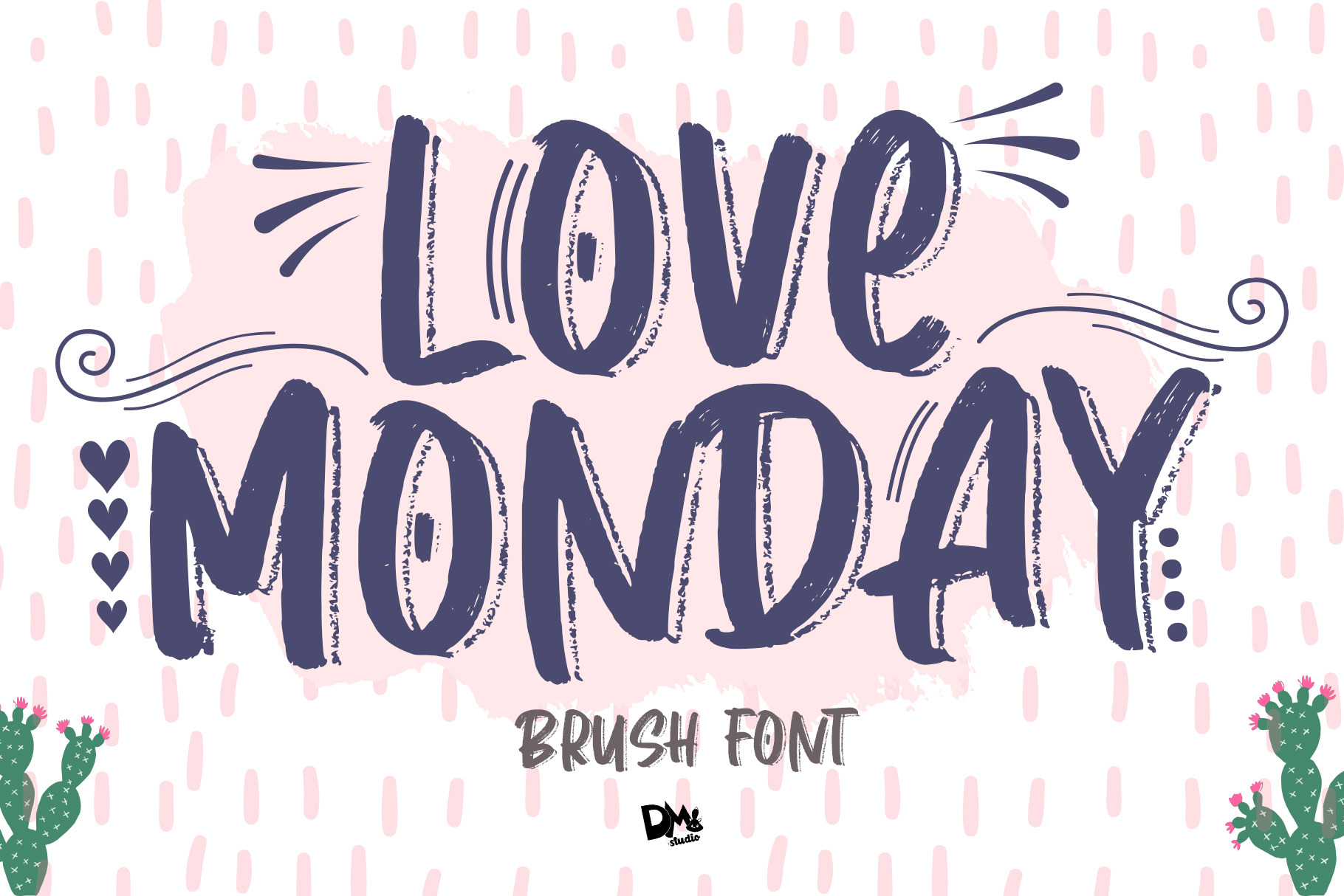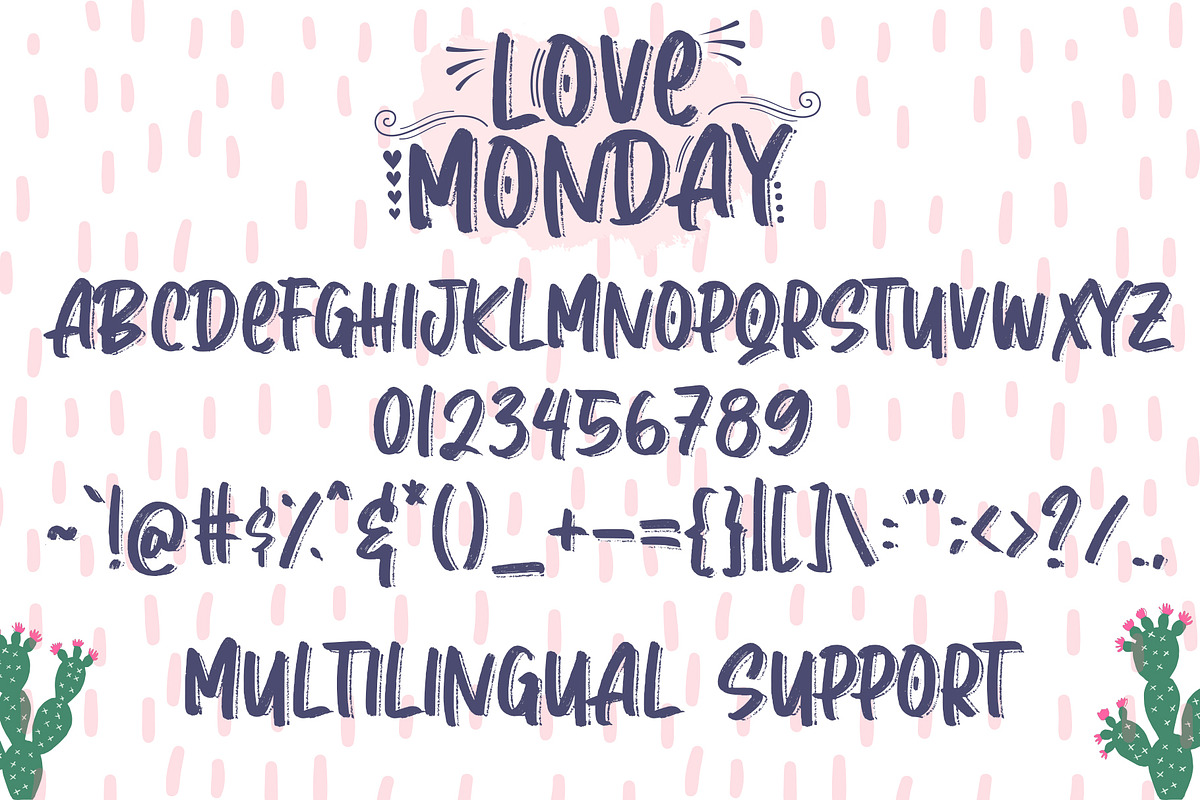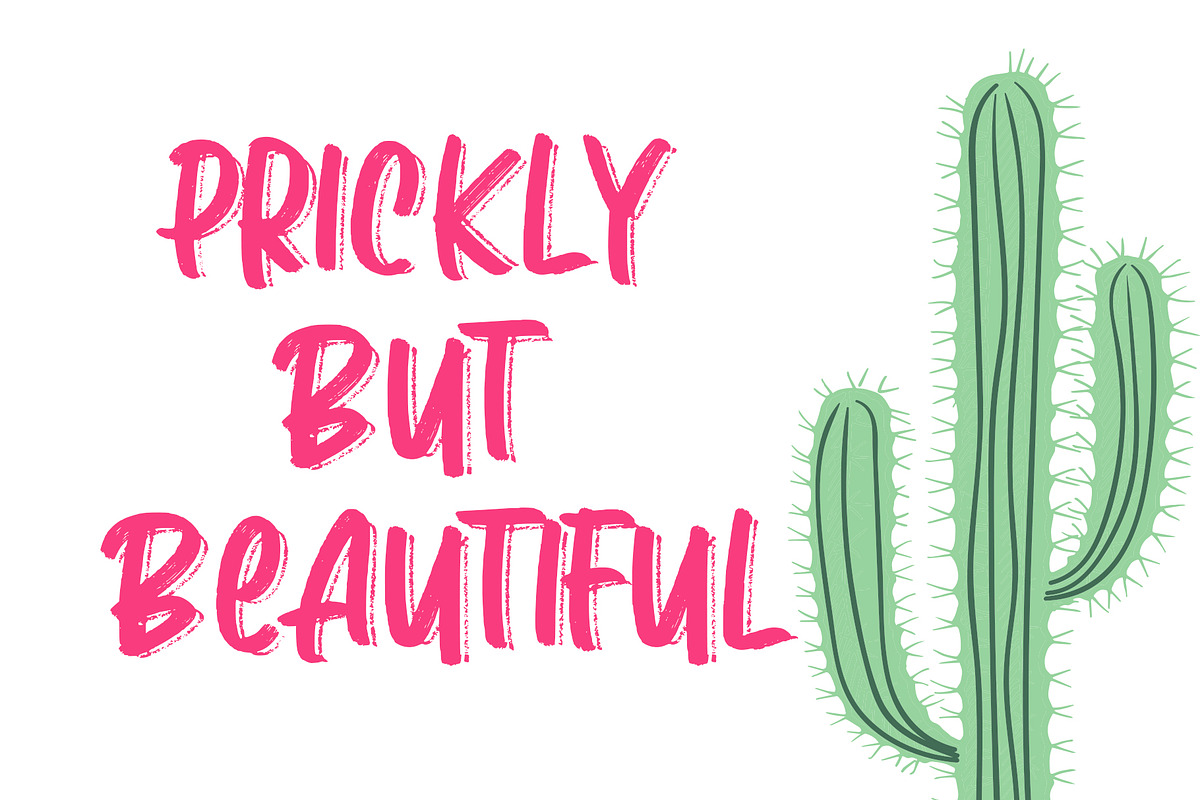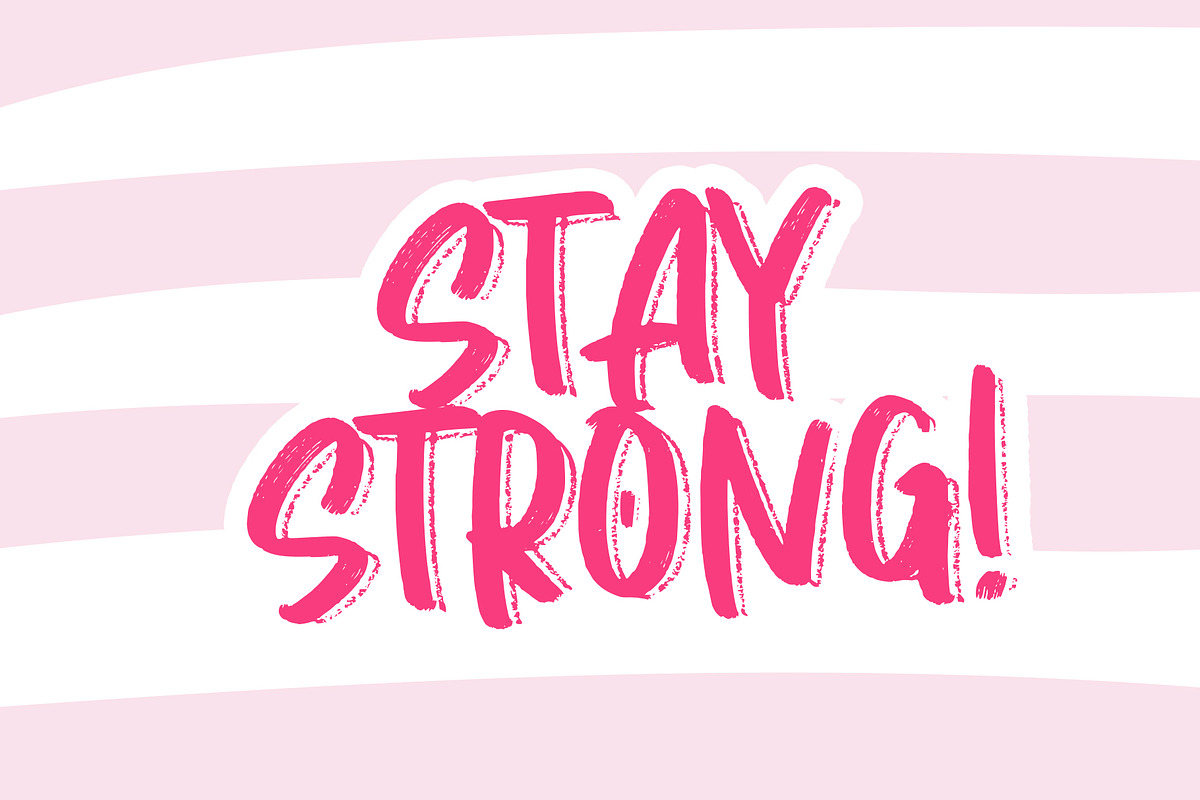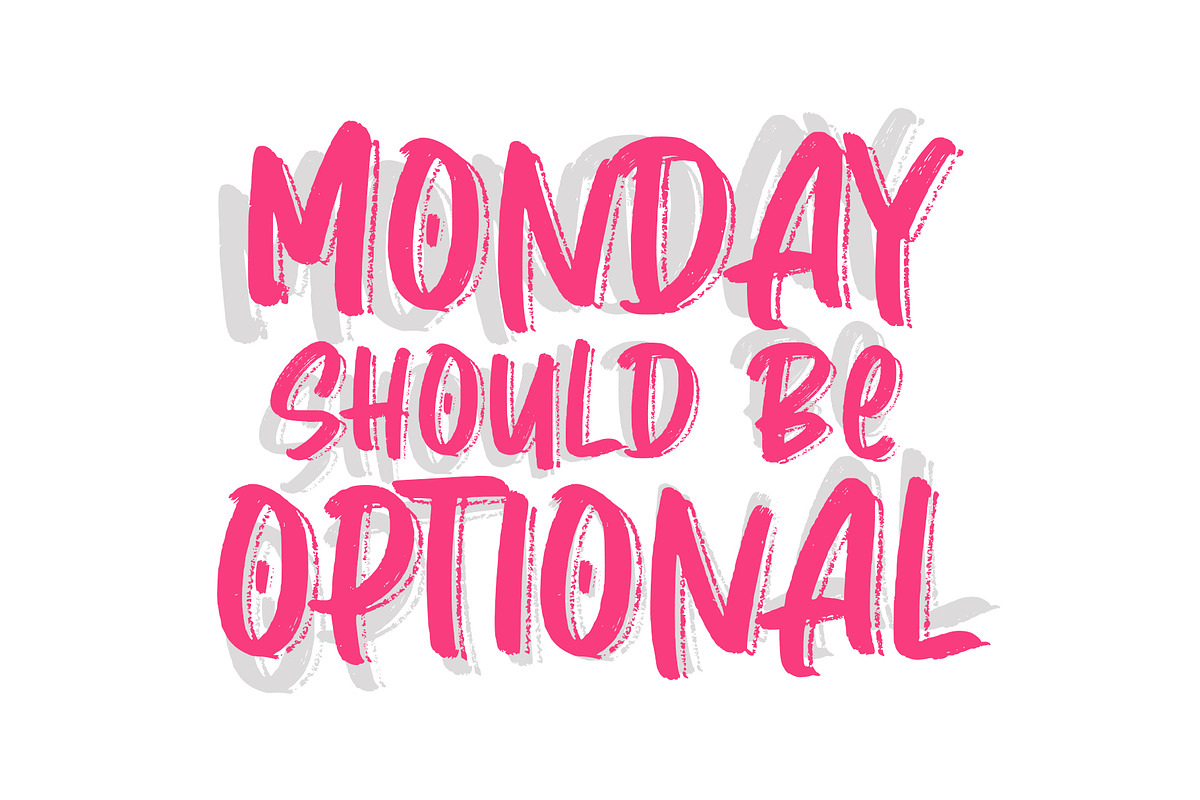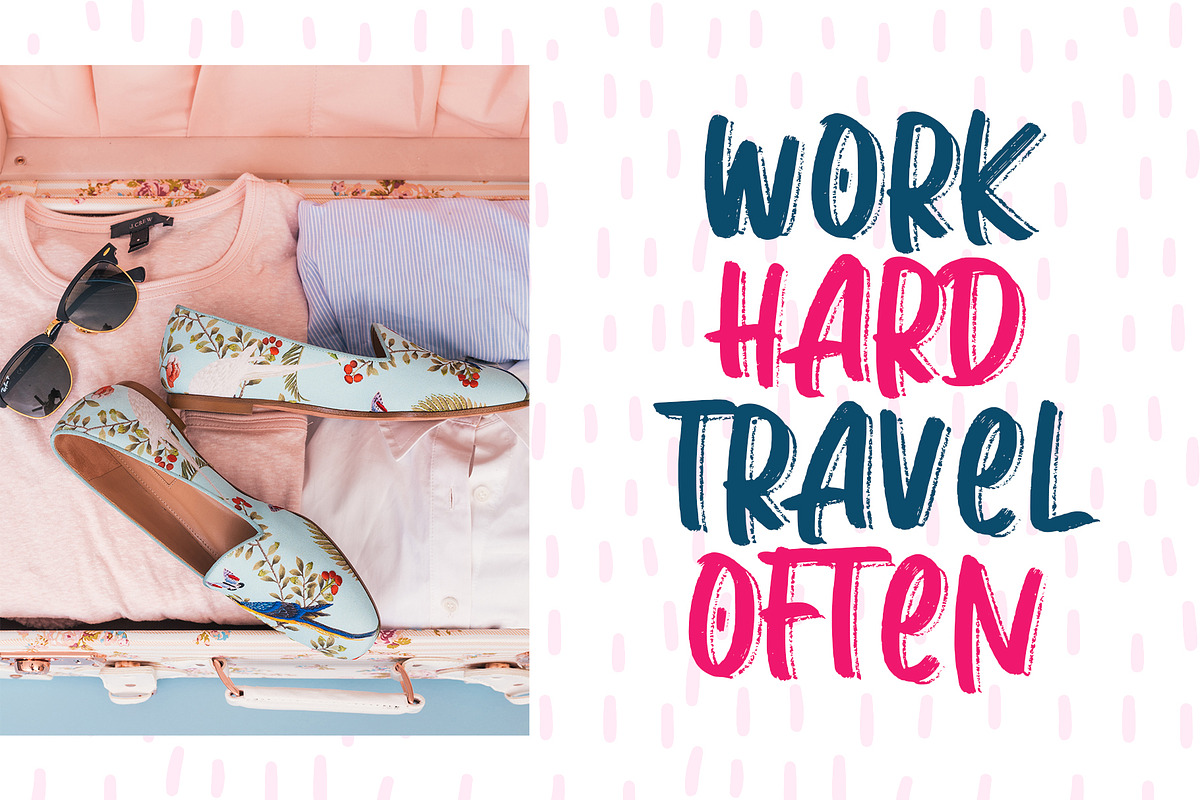
Love Monday - Brush Font
Love Monday Brush Font , will make your day more cheerful! Love the chic and chalky brush style!
- All in caps Characters
- Numerics